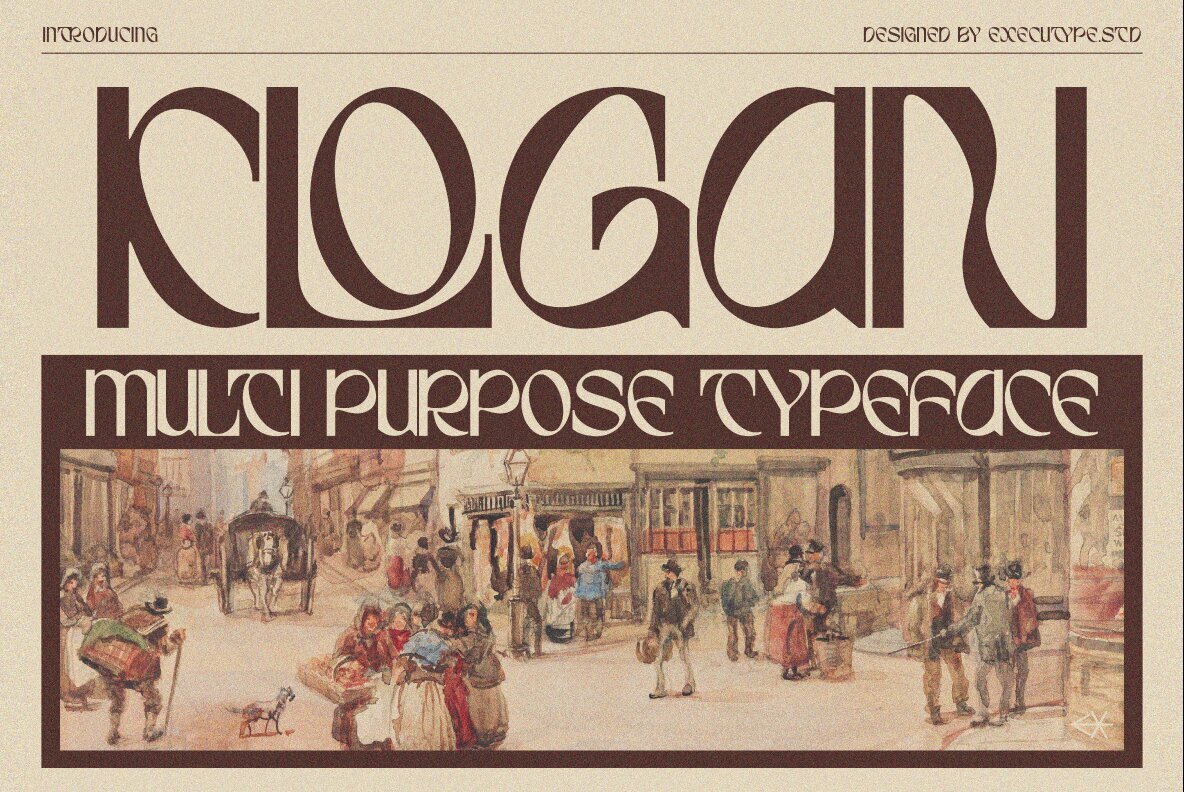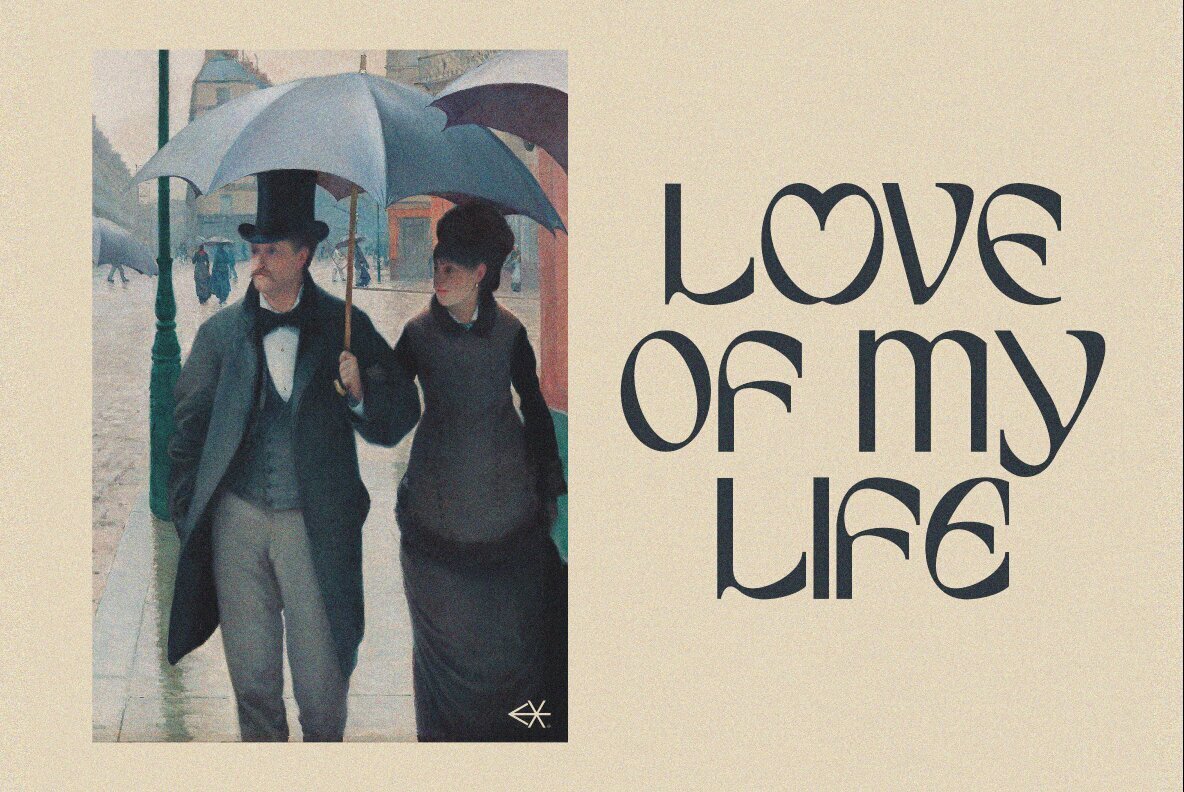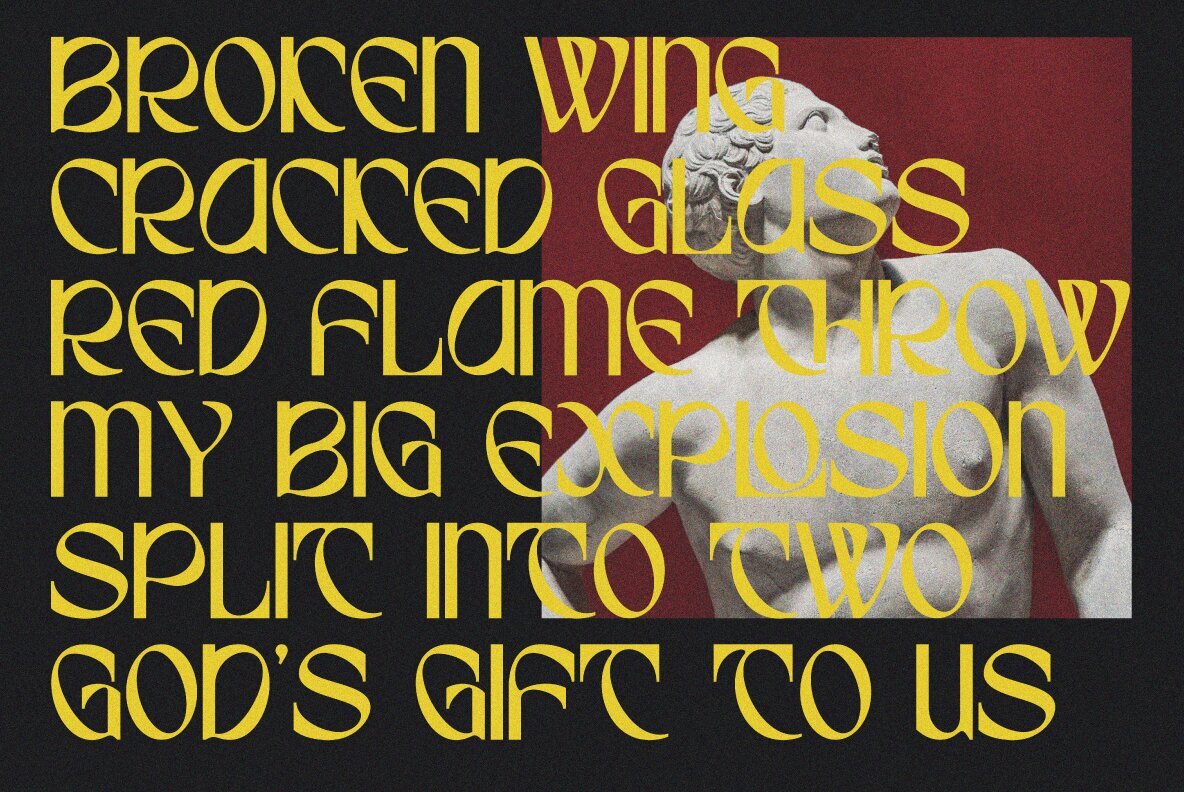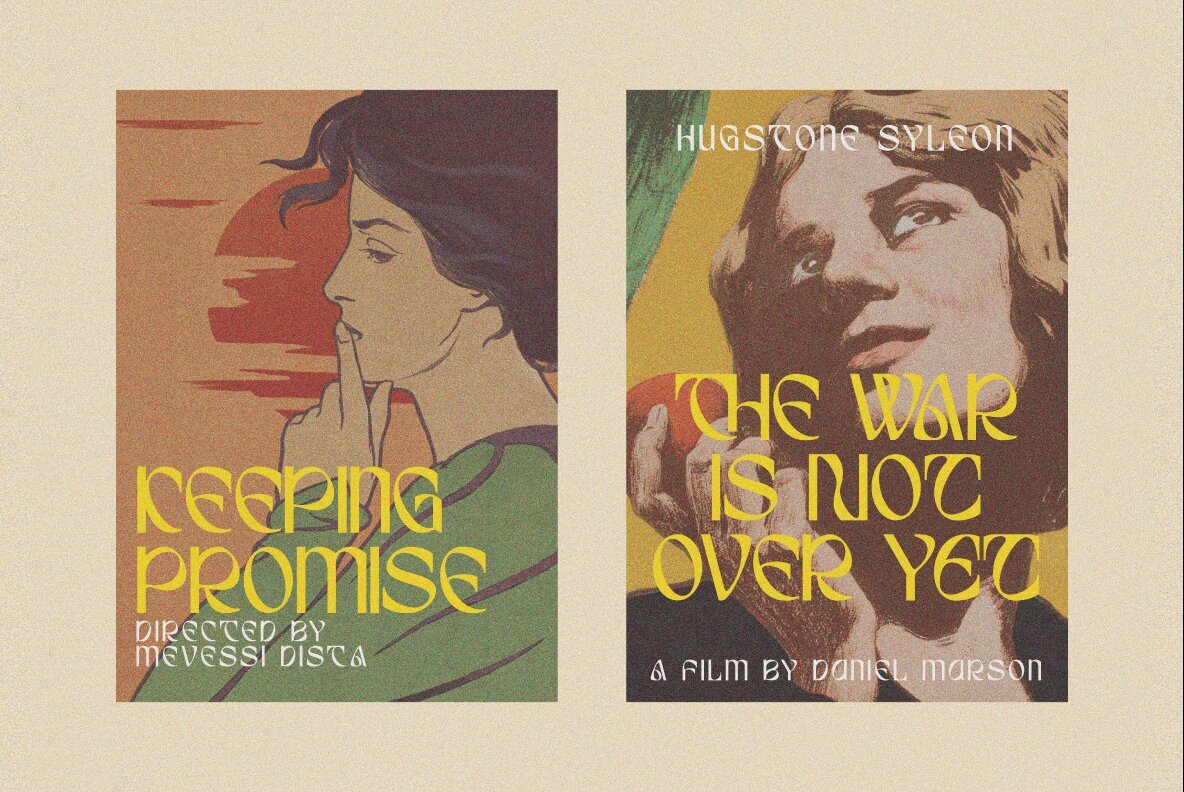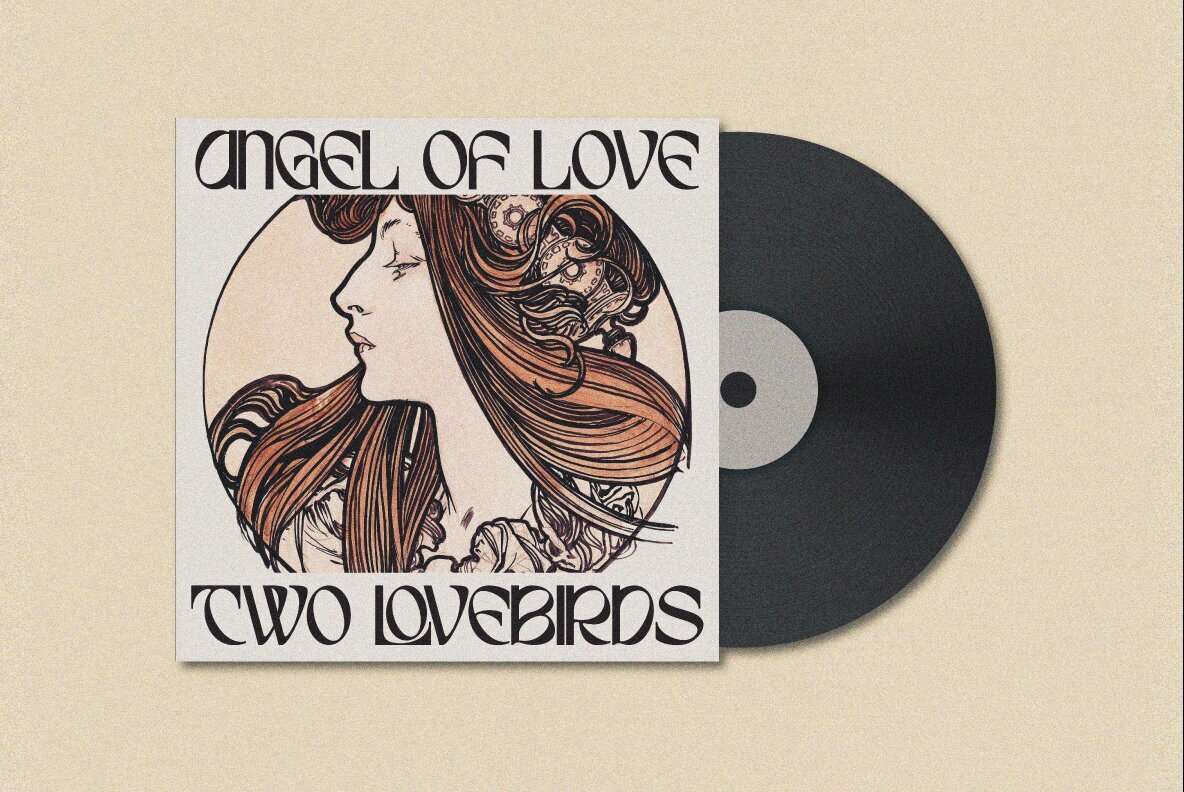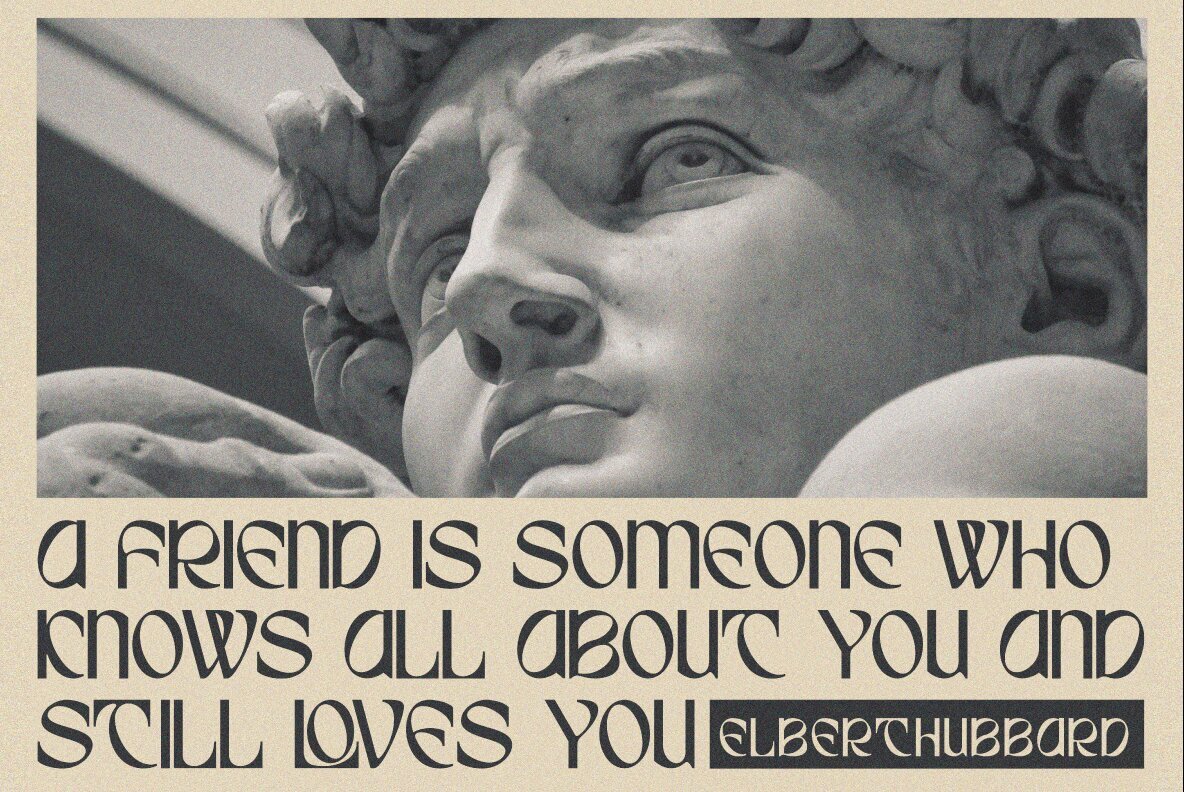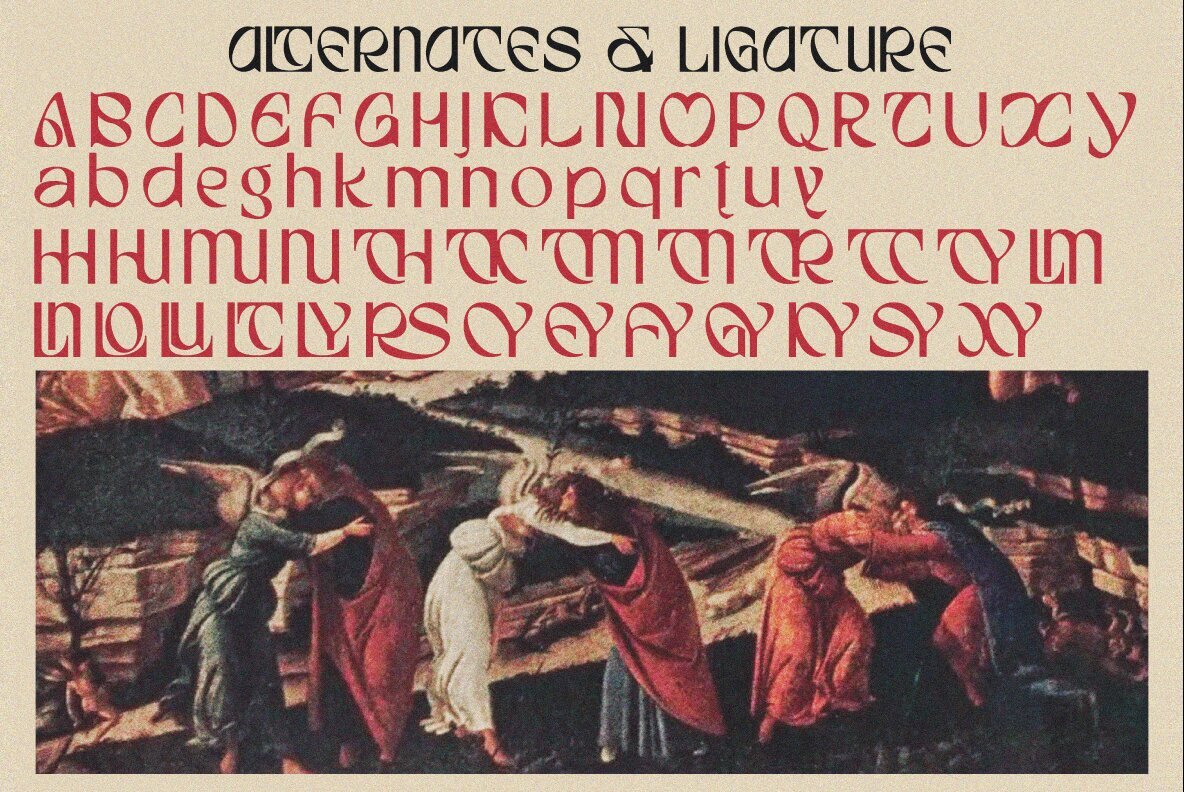
Klogan Display Font
Klogan Display Regular
Introducing Klogan Display, a contemporary serif typeface exuding elegance and strong style with its lively baseline. Ideal for a variety of applications—from invitation cards and branding materials to business cards, quotes, and posters—Klogan Display adds a touch of sophistication and visual strength to your projects. The Klogan Display font is perfect for those seeking a typeface that is as impressive at display sizes as it is legible in text size. Its sharp triangular serifs and distinctive letter shapes make it particularly effective for logo design and editorial use. Enhance your font collection with Klogan Display Serif and elevate your design projects.Klogan Display: Fresh & Modern Serif Typeface
Features of Klogan Display